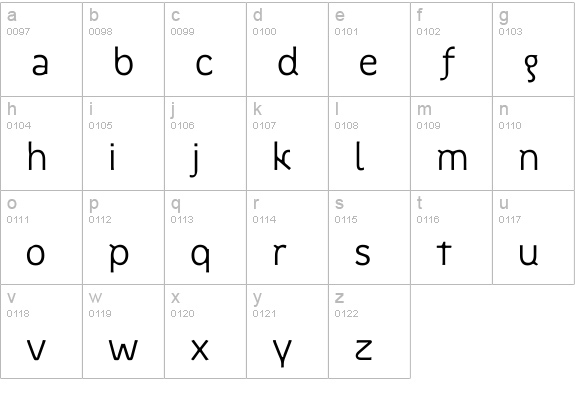
Spotka AlternateRegular font is a modern and versatile typeface that exudes creativity and sophistication. With its sleek lines and stylish design, this font is perfect for a wide range of projects, from branding to editorial design. The clean and legible characters make it easy to read both in print and on screen, ensuring that your message is always clear and impactful. The best part? Spotka AlternateRegular font is available for free download at FontsMarket.com. This means you can easily access and use this high-quality font in your projects without any cost. Don't miss out on the opportunity to elevate your designs with this beautiful and elegant typeface. Download Spotka AlternateRegular font today and take your creations to the next level!